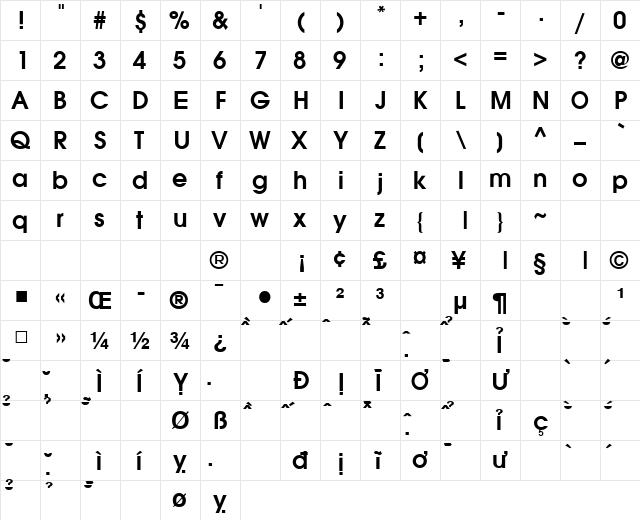
VNI-Avo Bold
Design Context for VNI-Avo Typeface
VNI-Avo is a composed and adaptable typeface that performs quietly and consistently across a wide range of design contexts. The heavy weight commands attention and anchors typographic hierarchies.